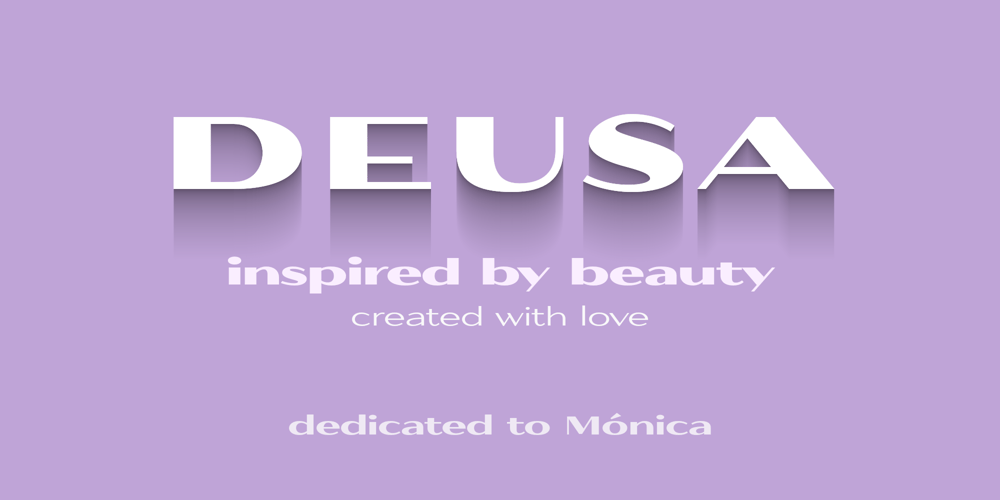
Deusa
Deusa font
Deusa Font Family was designed by Pedro Madeira and published by Multiformis. Deusa contains 7 styles and family package options. Deusa was designed with branding and advertising in mind. It was inspired by the perfume and fashion industries and intended to be an elegant and “clean” display typeface; characteristics which determined its sans-serif and significant contrast style attributes.The typeface includes multilingual support as well as standard ligatures and stylistic alternates. It also includes an “estimated” and Euro glyphs (the Euro as an alternate), both designed according to the official EU specifications.